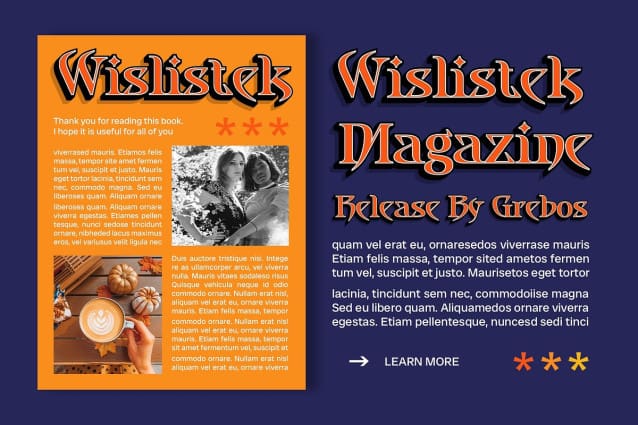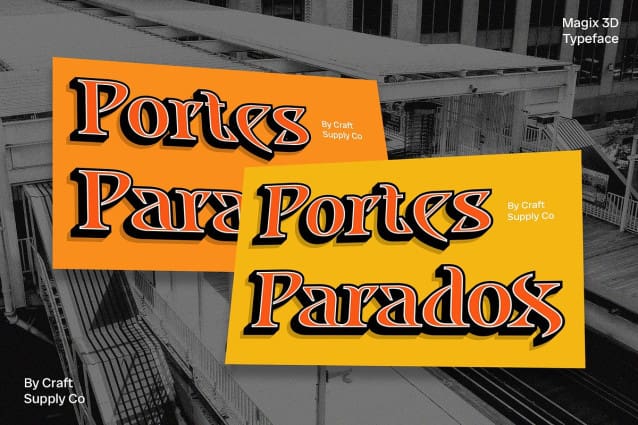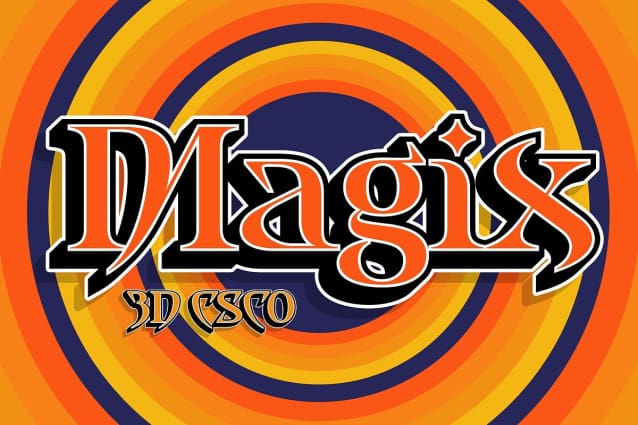
CS Magix 3D Font
CS Magix 3D Font is a modern display serif font that seamlessly blends contemporary serif design with a striking 3D effect, adding depth and visual interest to your projects. Its refined serif details and enhanced dimensionality create a sophisticated and dynamic typographic solution.
This font is perfect for projects that require an elegant yet modern and bold impression. Whether used in promotional posters, standout branding, or captivating digital designs, this CS font with 3D effect offers a unique blend of classic aesthetics and dynamic modern design elements.
The 3D effect of CS Magix 3D enhances visual depth, making it ideal for projects that demand an elegant yet modern and bold impression. Whether used in promotional posters, standout branding initiatives, or captivating digital designs, this font offers a distinctive combination of classic aesthetics and dynamic modern elements.
From promotional materials to digital platforms, CS Magix 3D adapts effortlessly, ensuring your designs maintain a timeless appeal while incorporating contemporary visual dynamics. Perfect for elevating your branding efforts or creating impactful promotional campaigns, this CS 3D font delivers a unique typographic solution that stands out with its dimensional charm.